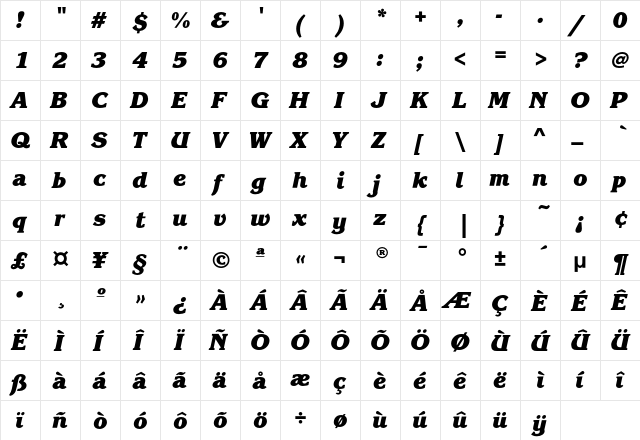
KorinnaEF-KursivHeavy Regular
Design Context for KorinnaEF-KursivHeavy Typeface
KorinnaEF-KursivHeavy is a composed and adaptable typeface that performs quietly and consistently across a wide range of design contexts. The slanted form adds forward momentum and visual energy.
Pro Tip: Use KorinnaEF-KursivHeavy for emphasis, pull quotes, and subheadings where its slanted energy can add rhythm to the layout.